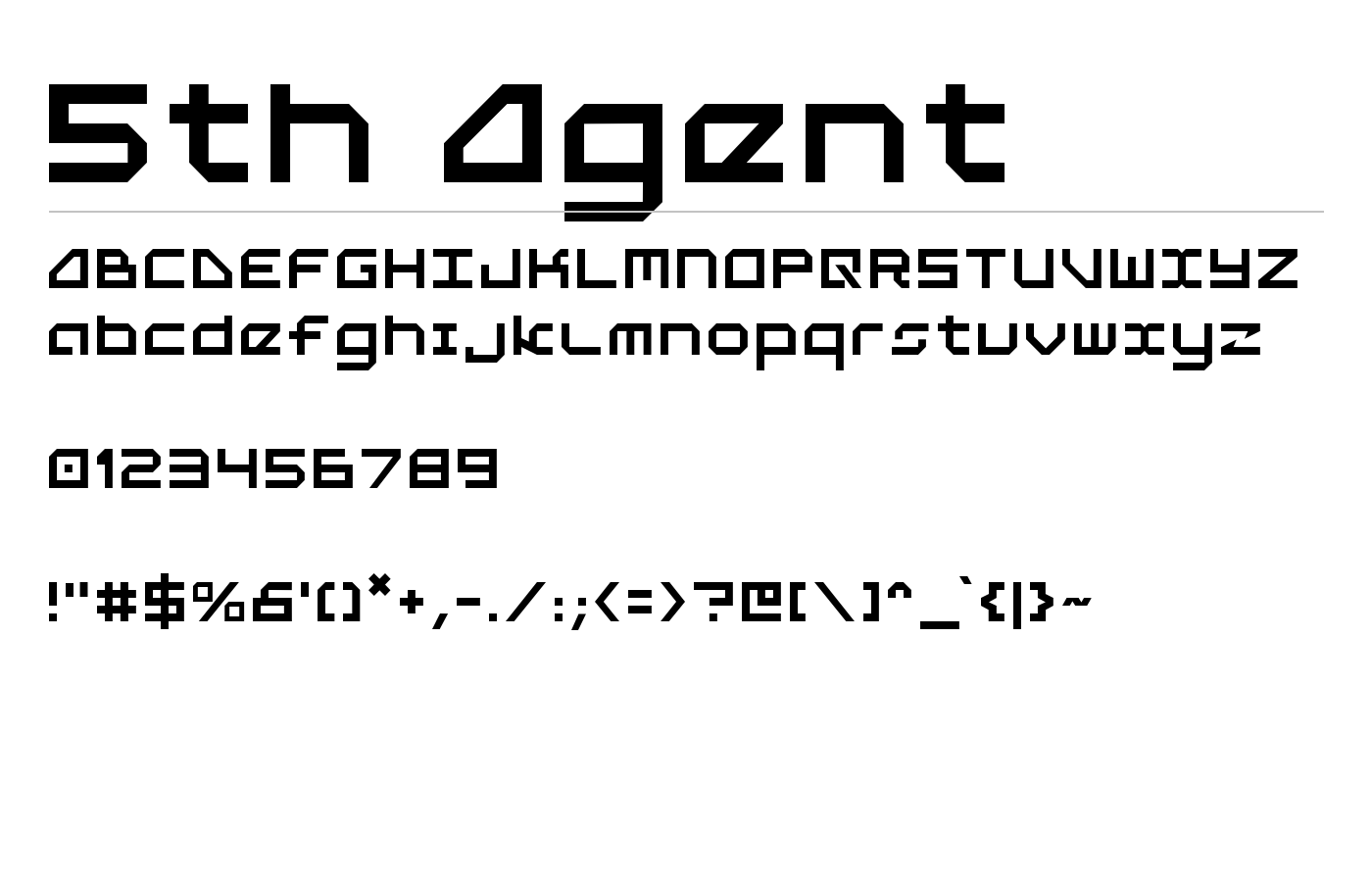
5th Agent is a geometric, monospace sans serif font with a futuristic, tech-inspired style. Its sharp, angular letterforms and consistent stroke weight give it a bold and mechanical feel, making it ideal for digital interfaces, sci-fi themes, and branding that seeks a modern, edgy look. This font works well for headlines, logos, and display purposes where a strong, distinctive presence is needed.
5th Agent Font
About 5th Agent Font